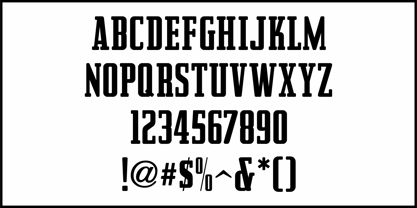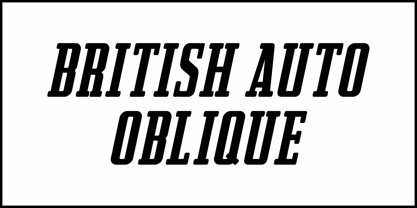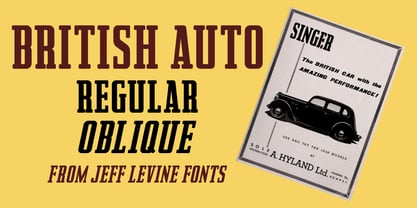
British Auto JNL
by Jeff Levine
The April, 1938 issue of Film India carried an ad for a British motor car called the Singer. The hand lettered text was drawn in a bold, condensed serif style featuring rounded corners and serifs.
This is now available as British Auto JNL in both regular and oblique versions.